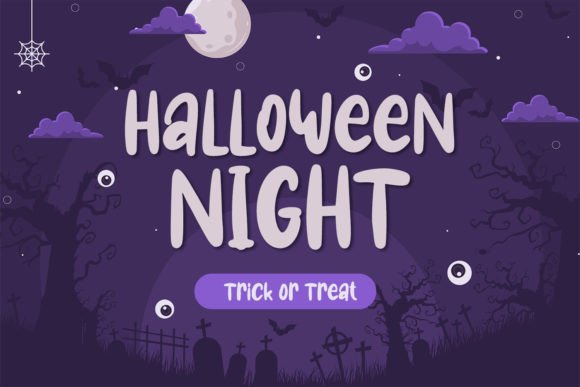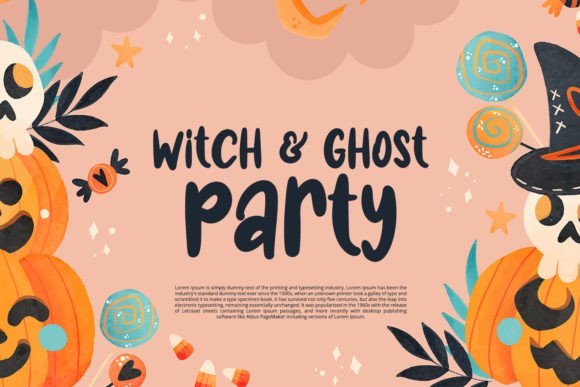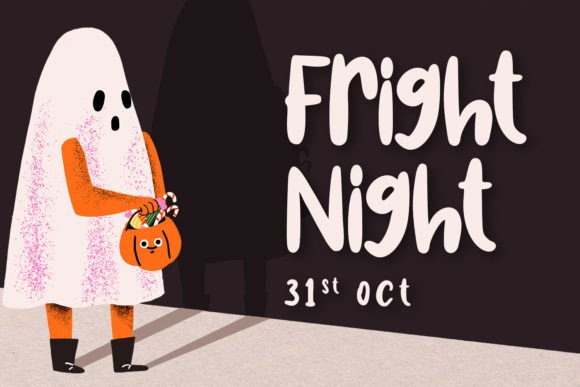
Introduction to Magic Candy Font
Magic Candy is a stunning playful display font with cute and playful feels.
It will be perfect for Branding, Logo Design, Lettering, Logotype, Clothing, Poster, magazine, packaging, posters, shopping bags, t-shirts, book covers, photography, special events, and other design projects .